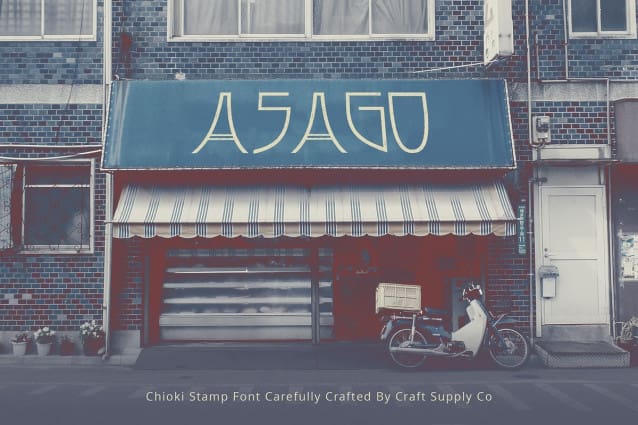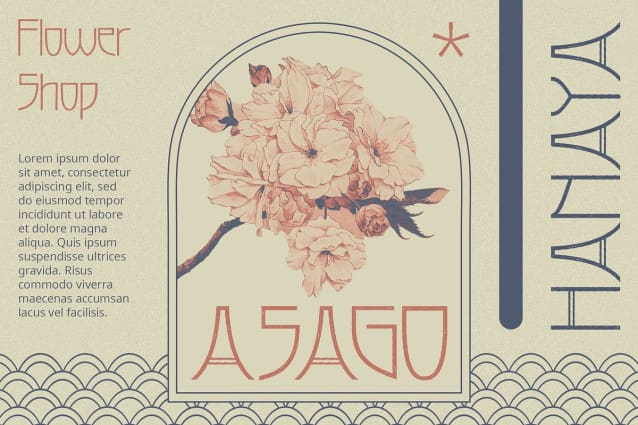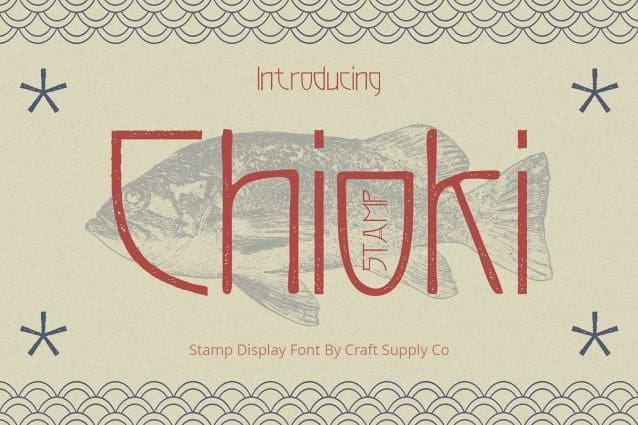
Chioki Stamp Font
Chioki Stamp Font: Fusion of Art Deco, Art Nouveau, and Japanese Culture. Vintage Charm with Artistic Influence Chioki Stamp combines the elegance of Art Deco and Art Nouveau with elements of Japanese culture. Its stamp effect adds a vintage touch, perfect for eye-catching display designs.
Inspirational Roots Drawing inspiration from diverse artistic movements and Japanese aesthetics, This font offers a unique blend of cultural influences. Its design pays homage to the rich history of art and design.
Versatile Display Typeface This font is versatile and adaptable, suitable for various display applications. From posters and advertisements to packaging and branding, it adds a touch of sophistication to any project.
Captivating Visual Impact With its intricate details and vintage flair, This font captivates viewers with its striking visual presence. Each character tells a story, inviting the audience to explore its artistic nuances.
Fusion of Cultures and Styles This font stands as a testament to the fusion of cultures and artistic styles. Inspired by Art Deco, Art Nouveau, and Japanese culture, it offers a captivating vintage aesthetic suitable for a wide range of display projects. Embrace the beauty of cultural diversity with This font.